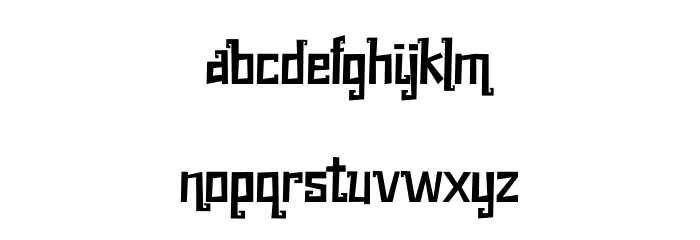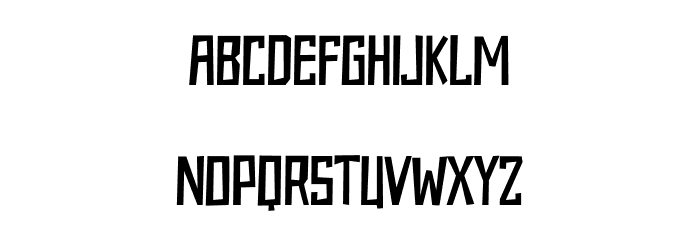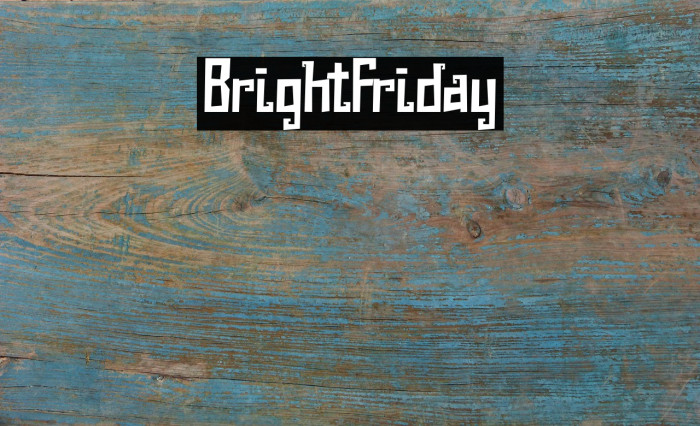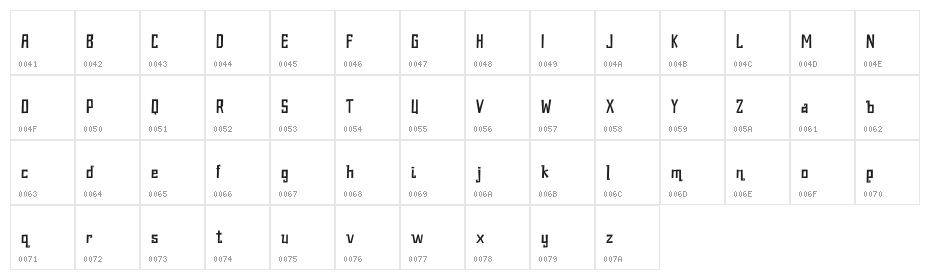
BrightFriday Font
This font features a bold and geometric design with a modern flair. The characters are constructed with sharp angles and straight lines, giving it a futuristic and edgy appearance. The uppercase letters are uniform in height, while the lowercase letters maintain a consistent style with slight variations in height and width. The numbers and special characters follow the same geometric pattern, ensuring a cohesive look across all text. This font is highly legible and makes a strong visual impact, suitable for various design applications.
A bold, geometric font with a modern and edgy style.
- Font: BrightFriday
- Proposed Projects: Ideal for branding, posters, headlines, and digital media that require a strong visual impact.